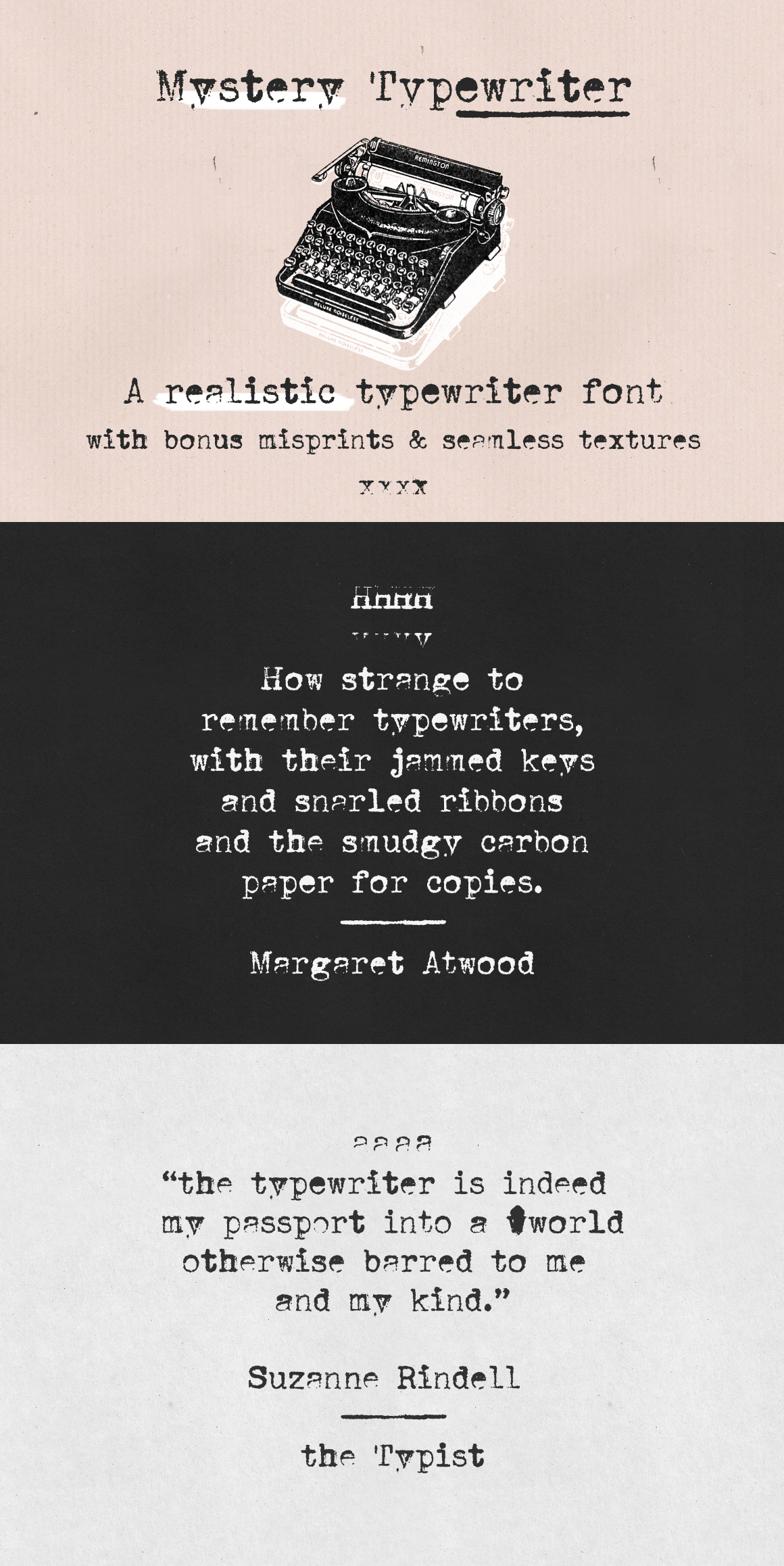
Mystery Typewriter font
Mystery typewriter is a realistic typewriter font with bonus misprints and seamless textures.
- Font with up to 3 alternatives for each letter, number and symbol, accessible through contextual alternates
- An extra set of 26 misprints to turn up the grunge volume in your designs
This typewriter font is perfect for:
- Adding an authentic feel to your retro and vintage designs. It will look great in logotypes and branding, packaging, editorial and website design in both titles and text, social media posts, posters and billboards, handmade postcards and tags.
- Writing your own mystery stories, while pretending you are Jessica Fletcher sitting down at her typewriter.*
- Solving real-life mysteries.*
This is it if you are looking for a typewriter 'emulator'. It includes fantastic use of Contextual Alternates so that each letter doesn't repeat. Love that! Wish more typewriter fonts had that option! It's almost like an AI that makes it look like it was done on a real typewriter rather than a typewriter font. It does NOT include Stylistic Alternates but it still has enough glyphs within Contextual Alternates, that if one glyph option repeats you just untick it for that character and it works perfectly. Stoked on this font!
Love this font - it gave the project we were working on a strong, unique character, but remained really legible, which was critical for us. Thanks!
It was not what I expected. Too gross, thick and without room for subtleties.